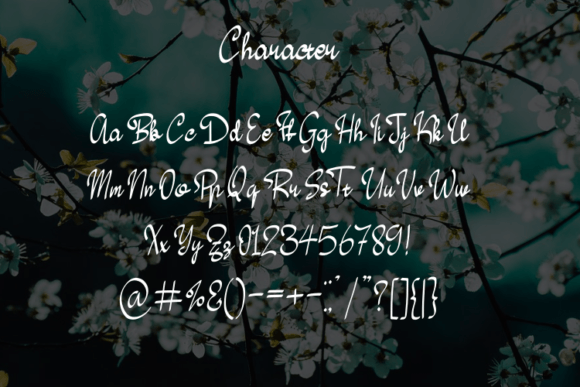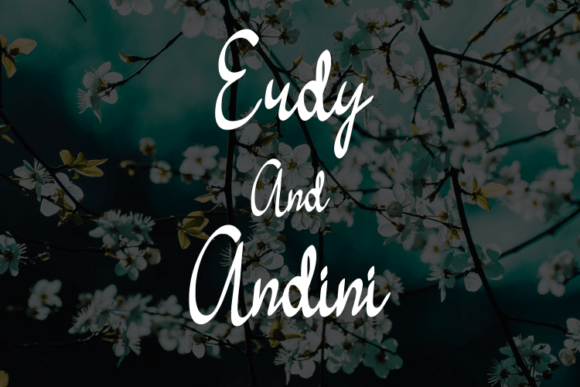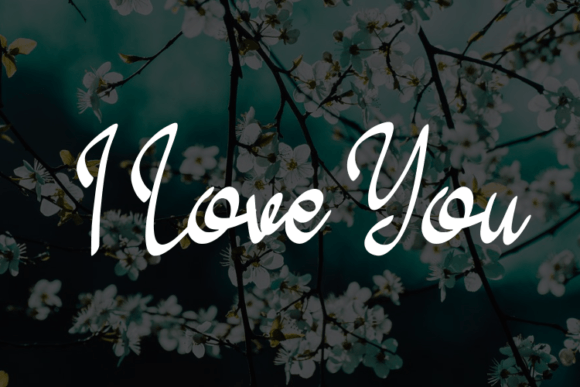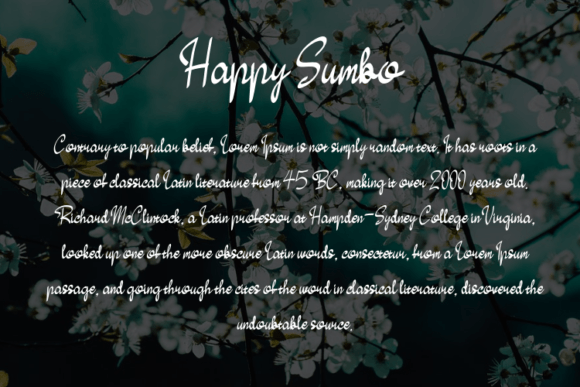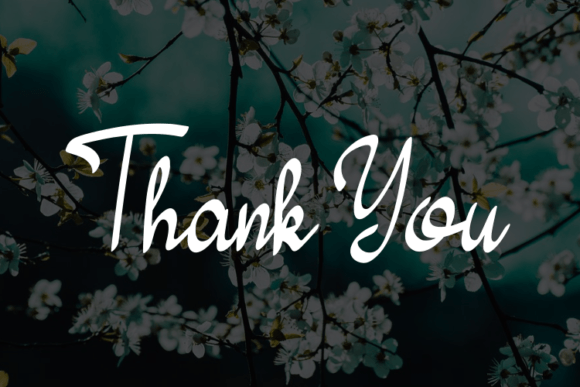
Introducing Happy Sumbo: The Simple and Natural Handwritten Font for Every Occasion
Are you tired of using the same old fonts for your designs and crafts? Look no further than Happy Sumbo, a beautiful and versatile handwritten font that’s perfect for a wide range of projects. Whether you’re a designer, crafter, or simply someone who loves to create, Happy Sumbo is a font that’s sure to become your new go-to.
What is Happy Sumbo?
Happy Sumbo is a simple and natural handwritten font that’s designed to be easy to read and use. Its clean lines and effortless charm make it perfect for a variety of projects, from digital designs and presentations to crafts and greeting cards. With Happy Sumbo, you can add a personal touch to your work and make it stand out from the crowd.
What Makes Happy Sumbo So Special?
So, what sets Happy Sumbo apart from other fonts? Here are just a few reasons why this font is a cut above the rest:
- Versatility: Happy Sumbo is a highly versatile font that can be used for a wide range of projects. Whether you’re designing a logo, creating a presentation, or making a greeting card, this font is sure to fit the bill.
- Ease of use: Happy Sumbo is incredibly easy to use, even for those who are new to design or crafting. Its simple and intuitive design makes it easy to get started and achieve professional-looking results.
- Natural look: Unlike some fonts that can look stiff or artificial, Happy Sumbo has a natural, handwritten look that’s sure to charm. Its imperfections and quirks make it feel more human and relatable.
How to Use Happy Sumbo
So, how can you use Happy Sumbo in your designs and crafts? Here are just a few ideas to get you started:
- Crafts: Happy Sumbo is perfect for a variety of crafts, from scrapbooking and journaling to card making and DIY projects.
- Digital design: Use Happy Sumbo in your digital designs, such as social media graphics, blog posts, and email newsletters.
- Presentations: Add a personal touch to your presentations with Happy Sumbo, perfect for business or personal use.
- Greeting cards: Create beautiful and unique greeting cards with Happy Sumbo, perfect for birthdays, holidays, and other special occasions.
Why Designers and Crafters Love Happy Sumbo
Happy Sumbo has quickly become a favorite among designers and crafters, and it’s easy to see why. Here are just a few reasons why this font is a hit:
- Easy to read: Happy Sumbo is incredibly easy to read, even at small sizes. This makes it perfect for a wide range of projects, from business cards to blog posts.
- Highly versatile: Happy Sumbo can be used for a wide range of projects, from formal to informal. Its versatility makes it a great addition to any design or crafting arsenal.
- Unique look: Happy Sumbo has a unique and distinctive look that’s sure to set your designs and crafts apart from the crowd.
In conclusion, Happy Sumbo is a simple and natural handwritten font that’s perfect for a wide range of projects. Its versatility, ease of use, and natural look make it a great choice for designers, crafters, and anyone who loves to create. Whether you’re making crafts, designing digital projects, or creating greeting cards, Happy Sumbo is sure to become your new go-to font.